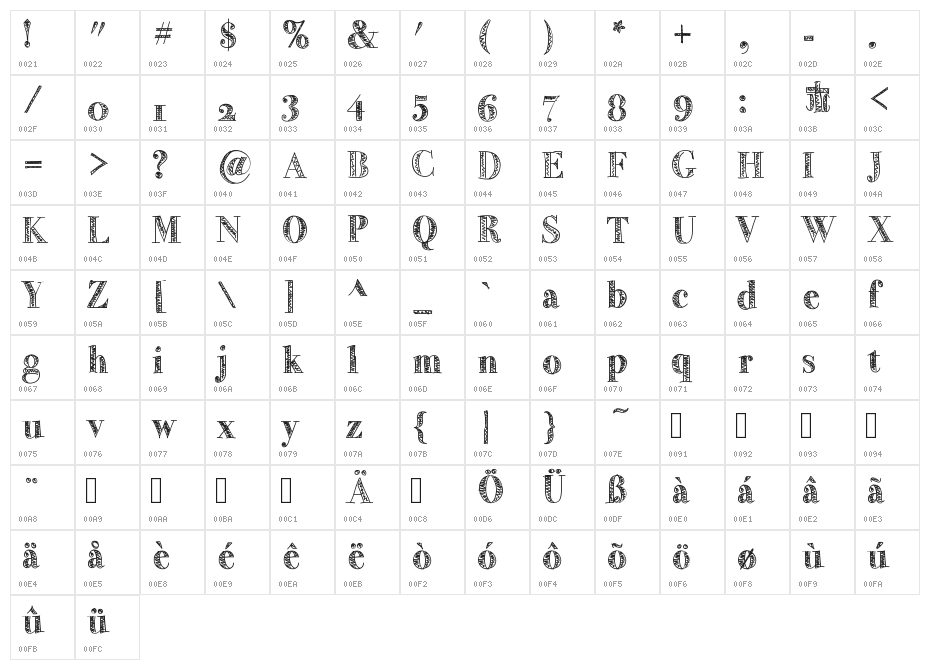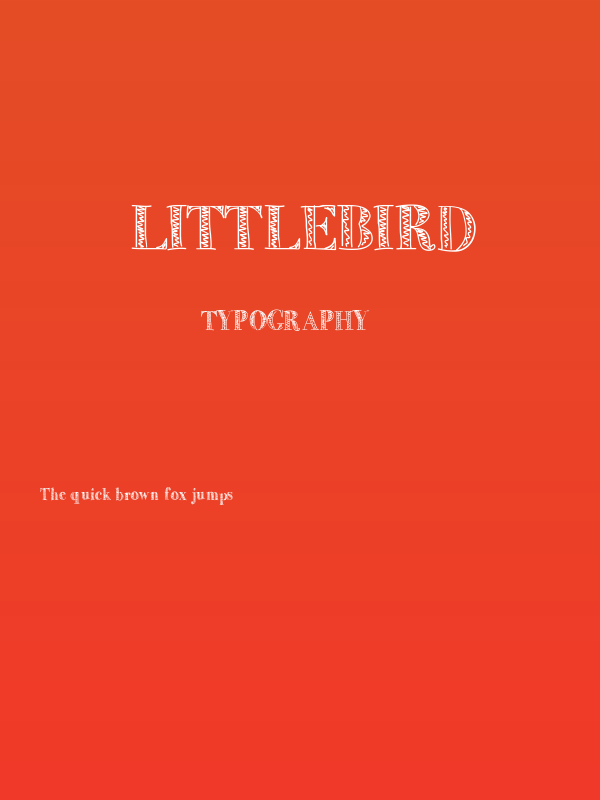
LittleBird Font
LittleBird Description
This font features a playful and whimsical design with a hand-drawn aesthetic. Each character is adorned with intricate patterns and textures, giving it a unique and artistic flair. The uppercase and lowercase letters maintain a consistent style, with bold strokes and decorative elements that create a sense of movement and energy. The numbers and special characters are equally detailed, ensuring a cohesive look across all glyphs. This font's distinct style makes it stand out, perfect for creative projects that require a touch of individuality and charm.
| Proposed Projects | Ideal for children's books, greeting cards, posters, and creative branding projects. |